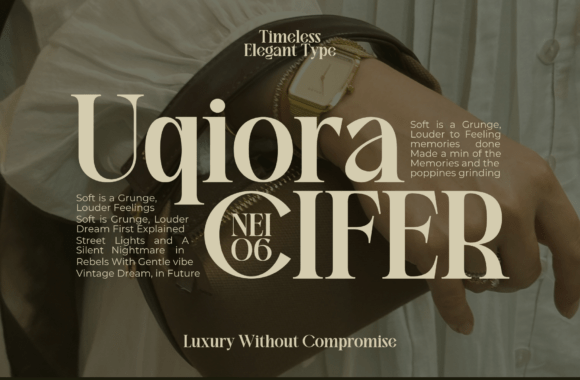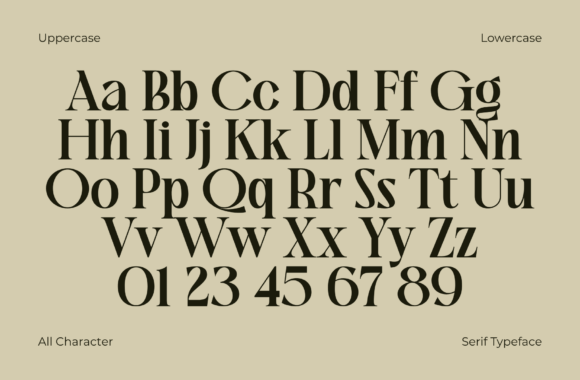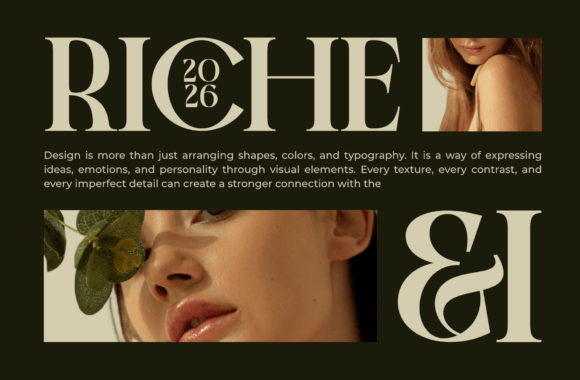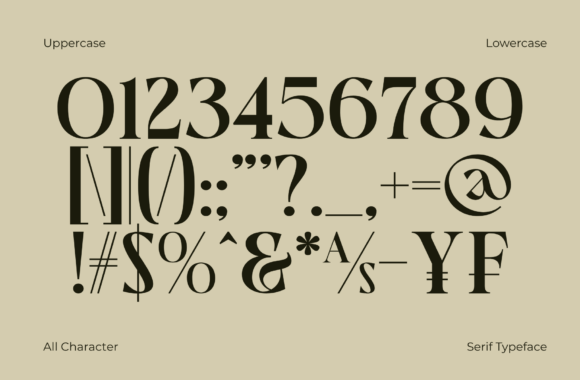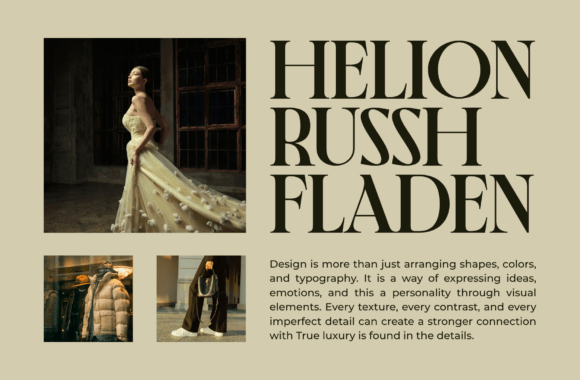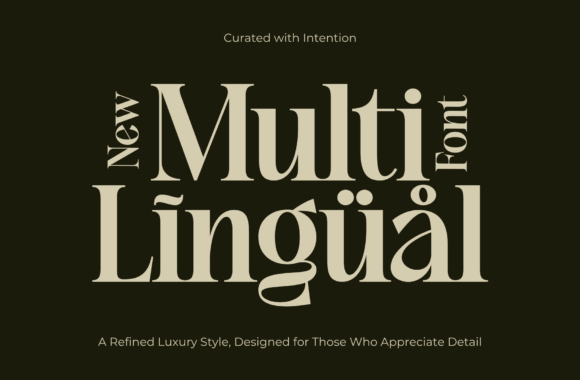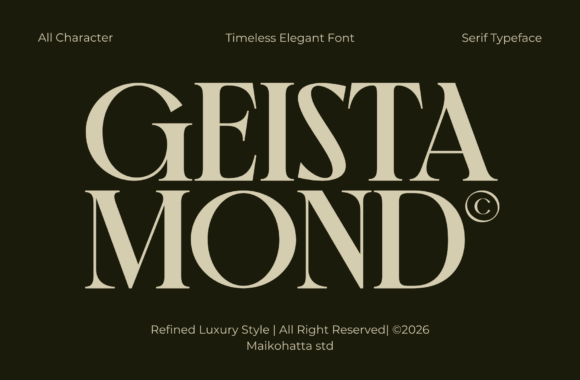
Introducing Geista Mond: The Epitome of Luxury Serif Fonts
In the realm of typography, few fonts manage to strike a balance between timeless elegance and modern sophistication. Geista Mond, a luxury serif font, is one such exceptional typeface that embodies the essence of high-end design. Crafted with meticulous attention to detail, Geista Mond is designed to bring a touch of class and refinement to a wide array of design projects.
The Inspiration Behind Geista Mond
Geista Mond draws its inspiration from the world of high-fashion editorials and contemporary branding aesthetics. The creators of this font sought to capture the essence of luxury and sophistication that is often found in top-tier fashion magazines, elite branding campaigns, and exclusive product packaging. The result is a typeface that exudes elegance, poise, and a deep sense of refinement.
Key Features of Geista Mond
Geista Mond is characterized by its elegant curves, refined contrasts, and sophisticated letterforms. These features combine to create a font that is not only visually stunning but also highly readable. The stylish serif details add a layer of complexity and luxury, making it an ideal choice for projects that demand a high level of sophistication.
One of the standout qualities of Geista Mond is its versatility. This font seamlessly blends modern minimalism with classic beauty, making it suitable for a wide range of applications. Whether you’re working on luxury branding, logo design, cosmetic packaging, fashion magazines, wedding invitations, jewelry brands, social media templates, or elegant advertising projects, Geista Mond is up to the task.
For designers and crafters looking to elevate their projects, Geista Mond offers a wealth of possibilities. Its clean lines and luxurious feel make it an excellent choice for those who aim to create visually stunning and professional-grade designs. Every character in Geista Mond has been carefully designed to deliver a clean, luxurious, and highly readable visual experience, ensuring that your work stands out from the crowd.
Applications of Geista Mond
- Luxury Branding: Establish a prestigious image for your brand with Geista Mond’s sophisticated and elegant appearance.
- Logo Design: Create memorable and impactful logos that convey luxury and refinement.
- Cosmetic Packaging: Elevate your product’s visual appeal with a font that screams luxury and high-end quality.
- Fashion Magazines: Bring a touch of glamour and sophistication to your editorial designs.
- Wedding Invitations: Add an element of class and elegance to your wedding invitations and stationery.
- Jewelry Brands: Perfectly suited for brands that want to convey exclusivity and luxury.
- Social Media Templates: Stand out on social media with professional and stylish templates.
- Elegant Advertising Projects: Create ads that are not only eye-catching but also exude a sense of luxury and sophistication.
Why Choose Geista Mond?
In a world where first impressions are crucial, Geista Mond offers a way to instantly elevate your design projects. Its unique blend of modernity and classic elegance ensures that your work will be perceived as sophisticated, professional, and of high quality. By choosing Geista Mond, you’re not just selecting a font; you’re adopting a design philosophy that prioritizes excellence and luxury.
Geista Mond is more than just a luxury serif font; it’s a tool for designers and crafters to create works that inspire, influence, and impress. With its elegant curves, refined contrasts, and sophisticated letterforms, Geista Mond is poised to become a favorite among those who strive for perfection in their designs. Whether you’re aiming to create a luxurious brand image, design captivating fashion editorials, or craft elegant advertising projects, Geista Mond is the perfect companion on your creative journey.